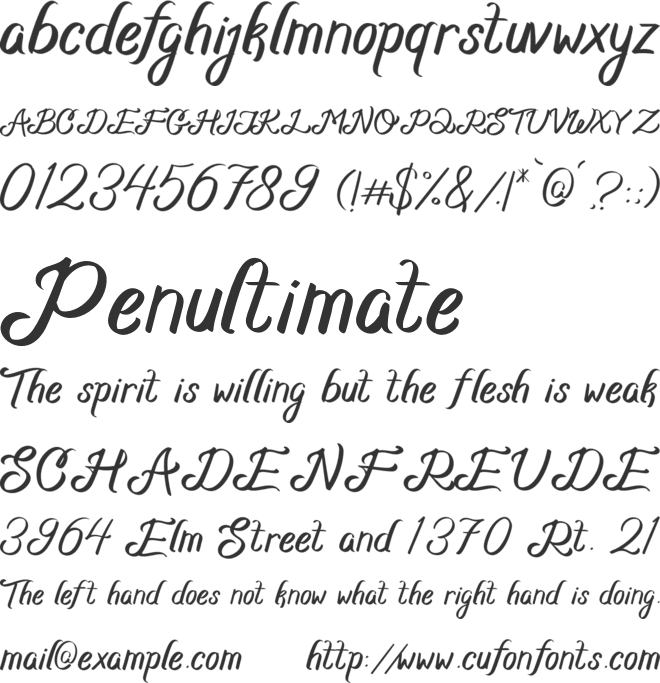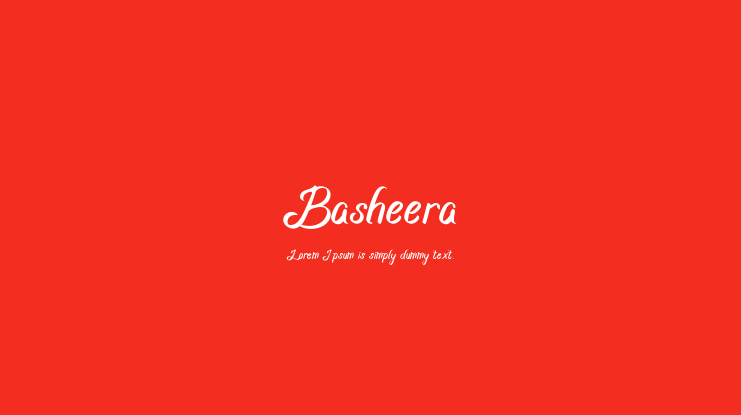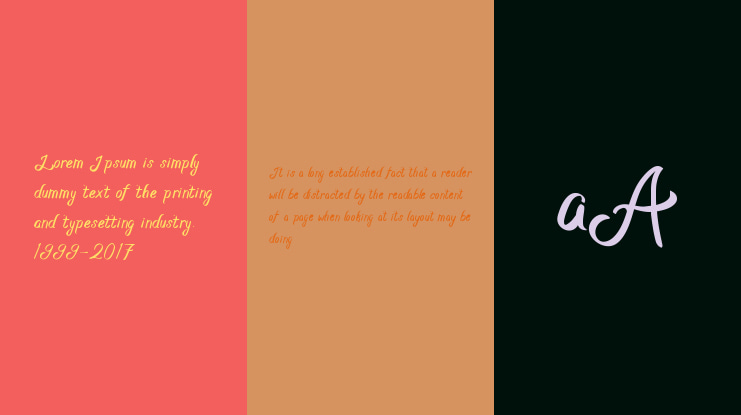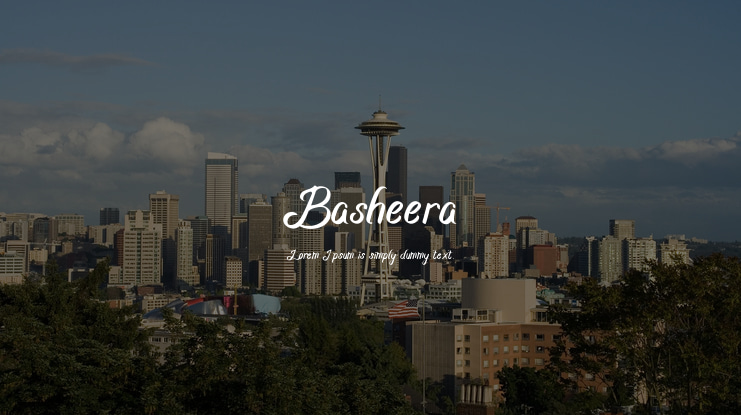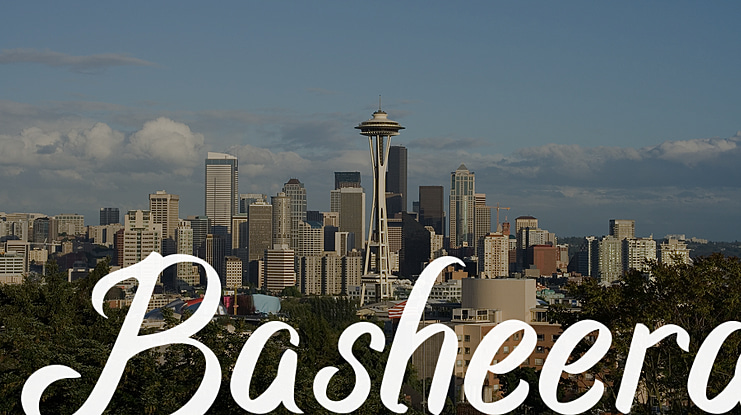
Basheera Font
Introducing Basheera – a new modern & fresh calligraphy font. this font looks natural, elegant, and perfect for any awesome projects.
Basheera is perfect for many different project such as logos & branding, invitation, stationery, wedding designs, advertisements, product packaging, product designs, label, photography, watermark, special events or anything.